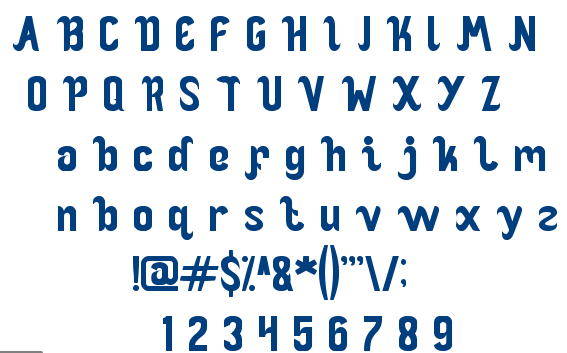
Ocean Font
The Ocean Font is the sophisticated and best creative font for individual projects. Though, if you want to put on it commercially, the necessity to repay for a certificate. They have been everywhere for more or less time, and so has peaks of Christmas.
There are not any italics accessible. Though, the font likeĀ Nordic Font shelters the best Latin and Cyrillic tongues.